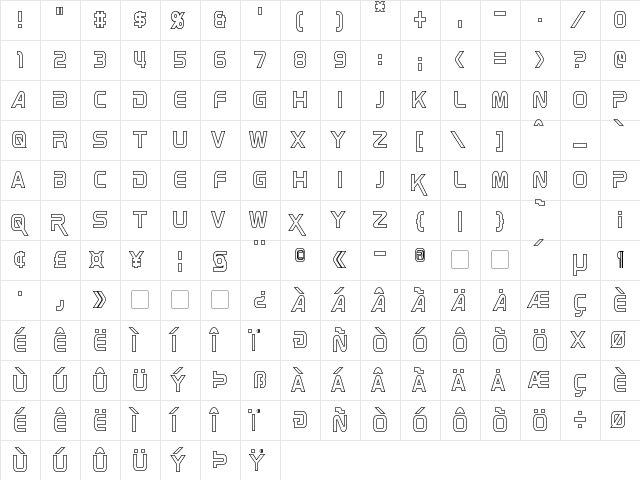
Zebulon Condensed Hollow Regular
| Designer | Neale Davidson |
Design Context for Zebulon Condensed Hollow Typeface
Zebulon Condensed Hollow offers clean, dependable letterforms without strong stylistic allegiance, making it a practical choice for designers who need flexibility. The condensed width makes it efficient for tight spaces without sacrificing legibility.